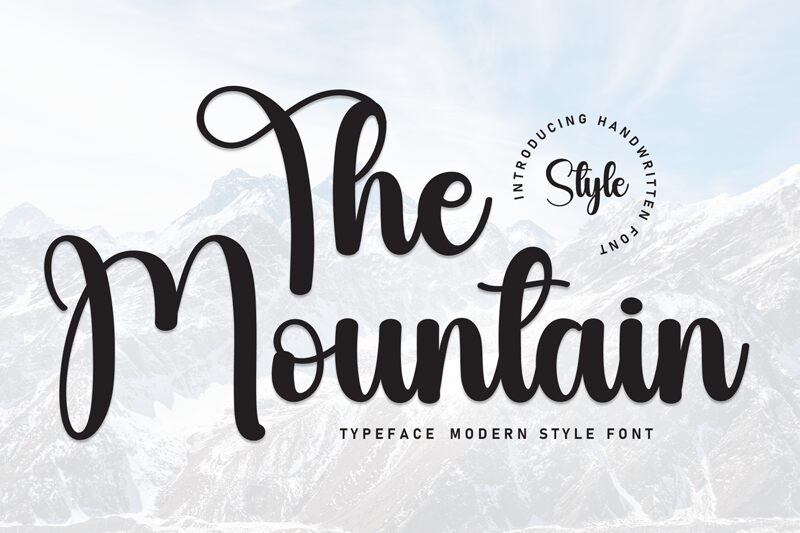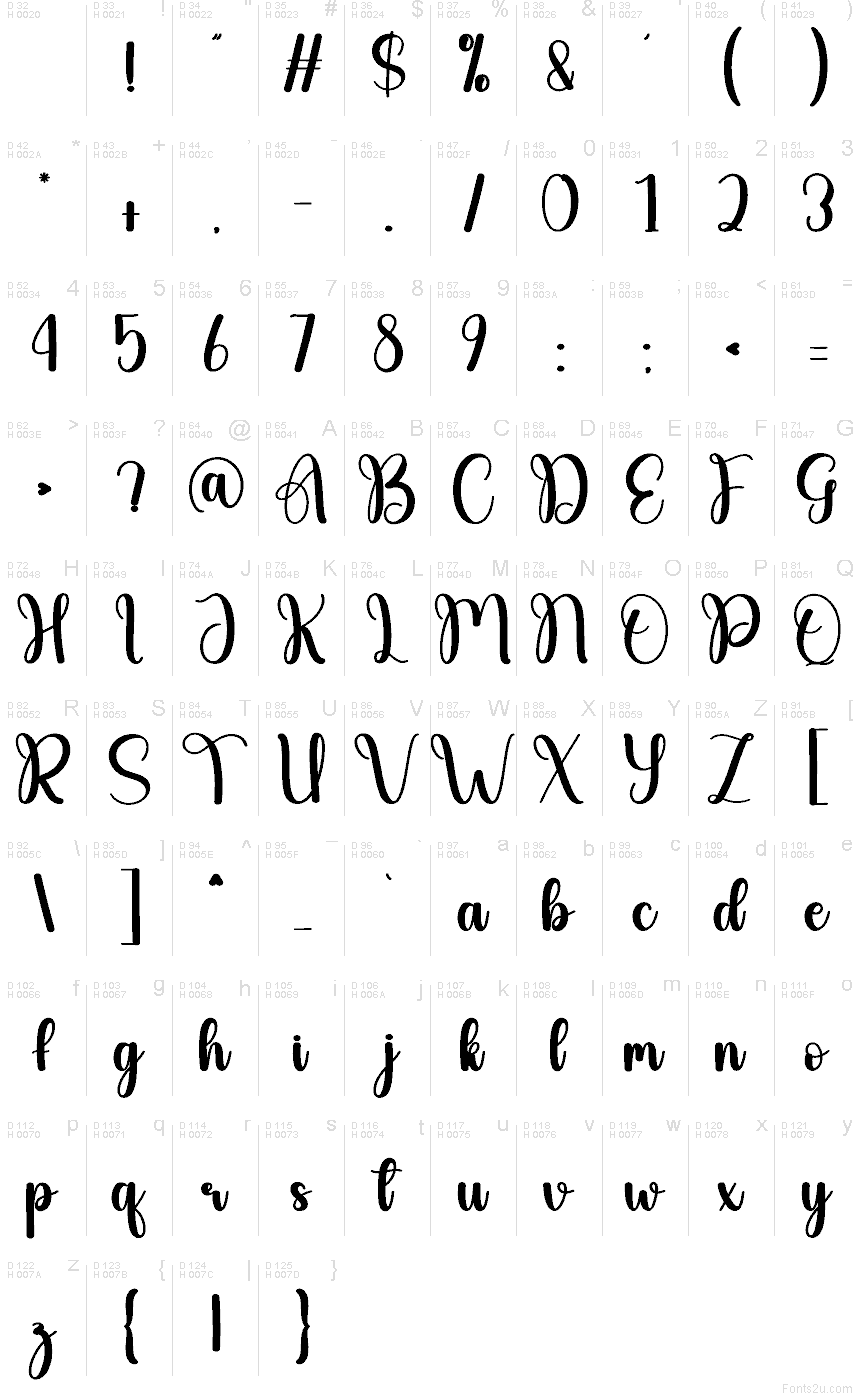
The Mountain
The Mountain font by Andi Moz is a free calligraphy typeface with big, sweeping curves and a bold, inky texture that feels hand-lettered and heartfelt. Its looping caps and softly bouncing rhythm create a sense of motion, as if the words were written in one confident stroke. Thick strokes keep it legible even at smaller sizes, while the flourished forms add a romantic, crafted touch.
Using The Mountain font, you can give wedding invitations, save-the-dates, greeting cards, social media quotes, product packaging, and boutique logos a warm, personal voice. This free font shines when you let it breathe—set it large and airy, then pair it with a clean sans serif for supporting text to keep everything balanced and readable.